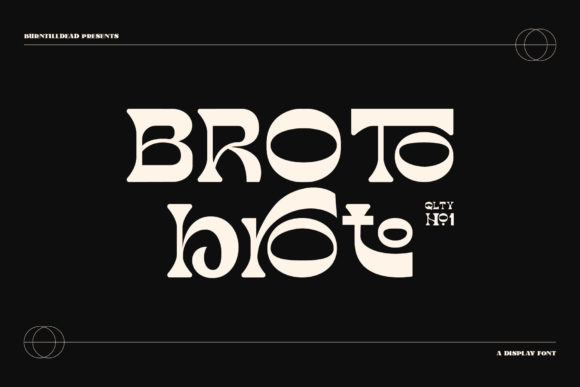
The Magical World of Broto Font: A Designer’s Delight
An Honest Review of Broto Font
So, what makes Broto Font so special? Here are a few things I love:
- ✨ Whimsical style: Broto Font has a unique, magical quality that will transport your designs to a fantastical world.
- ✅ PUA encoded: With PUA encoding, you can access all the glyphs and swashes with ease, making it a breeze to customize your text.
- ✅ Retro charm: The serif style and classic lines of Broto Font evoke a sense of nostalgia and timelessness.
Of course, no font is perfect, and Broto Font has a few small quirks:
- 🤔 Limited use in very formal designs: Broto Font’s playful style may not be suitable for very formal or professional projects.
- ⚠️ Some characters may require manual adjustment: Depending on the context, some characters may need manual adjustment to ensure optimal spacing and alignment.
The Story Behind Broto Font
Broto Font was designed with the intention of evoking a sense of nostalgia and wonder. The font’s creator wanted to craft a typeface that would transport users to a magical world, where creativity and imagination know no bounds. With its unique blend of retro charm and whimsy, Broto Font is sure to inspire your designs.
| Font Name | Broto Font |
| Author | Burntilldead |
| Is Broto Font suitable for body text? | While Broto Font is beautiful, it’s primarily designed for display text. For body text, you may want to choose a font with better legibility and readability. |